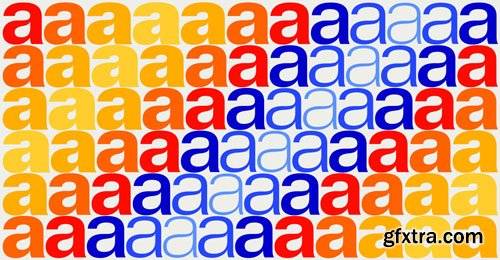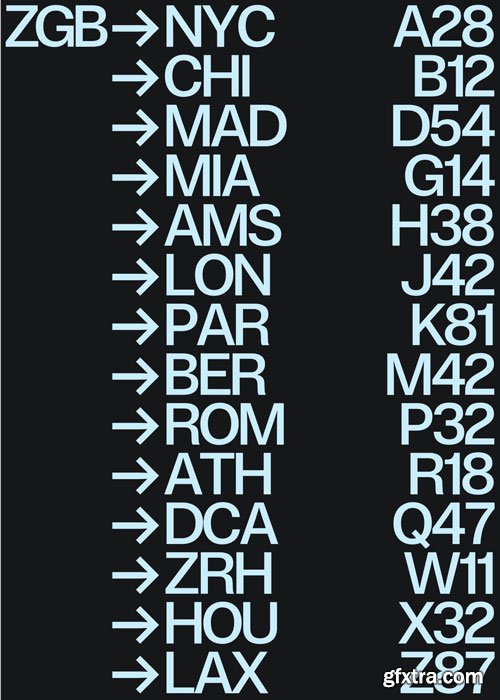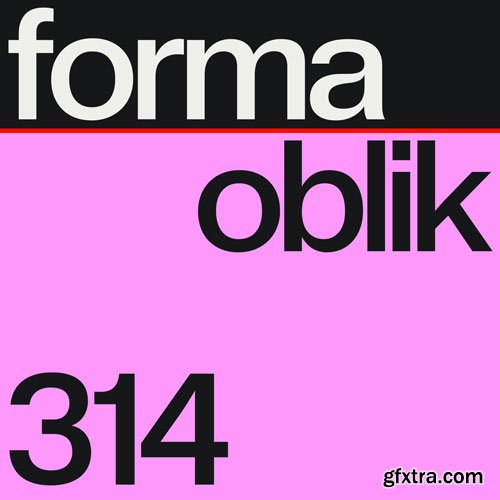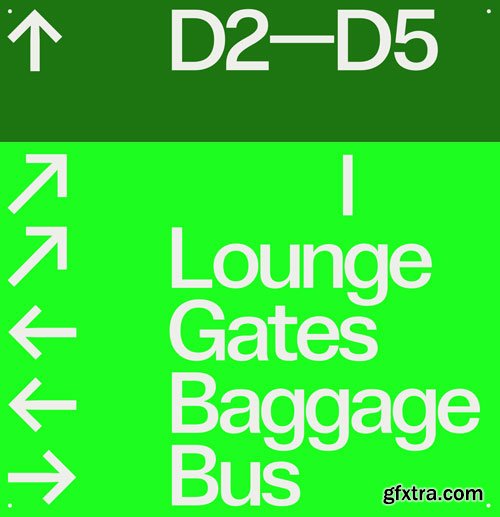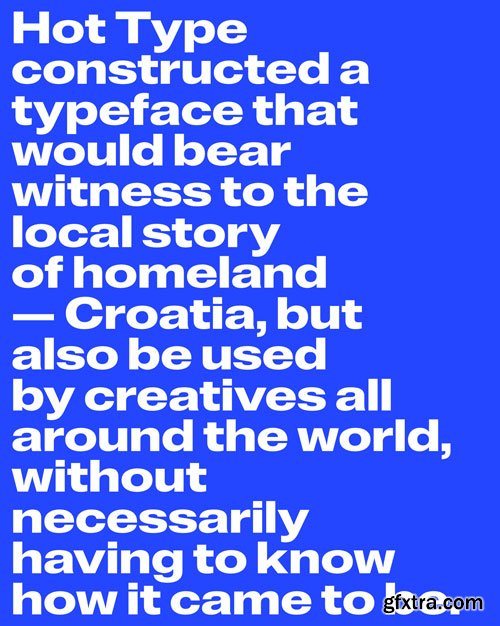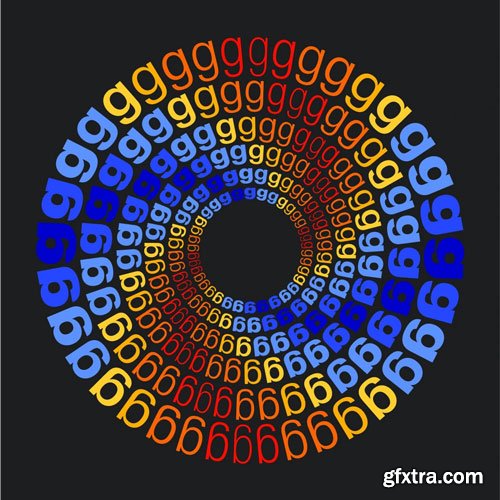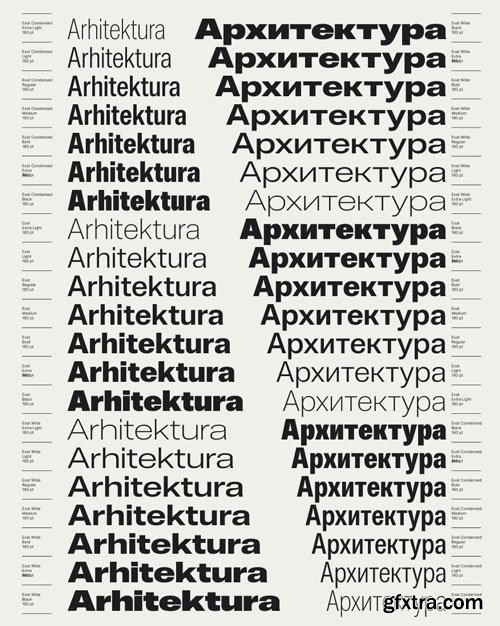
Exat Font Family
The Exat typeface captures the very essence of modernist ideas, striking a harmonious balance between form and function, whilst being aimed at contemporary users. It undeniably references one of the most popular typefaces of all time, all while incorporating extraordinary width and weight options in a robust character set. Exat supports Latin and Cyrillic scripts—covering more than 430 languages—and includes features and stylistic sets inspired by local Croatian graphic design quirks, such as modified thin accents. What’s specific to this design is that it started as a redrawing of a single letter “a” and the desire to craft a typographic world around it. We wanted to construct a typeface that would bear witness to the local story of our homeland, but also be used by creatives all around the world, without necessarily having to know how it came to be. Exat is inarguably our most ambitious release yet, offering the user total control in choosing the right type—fit for any situation.